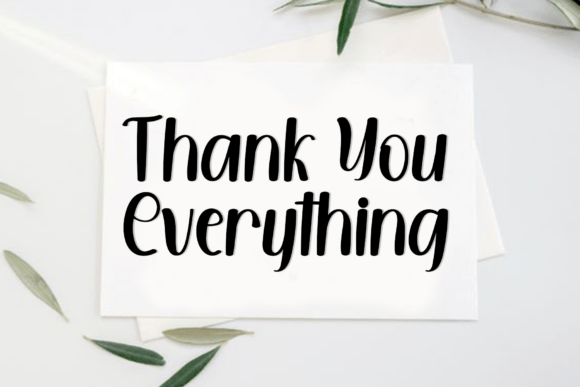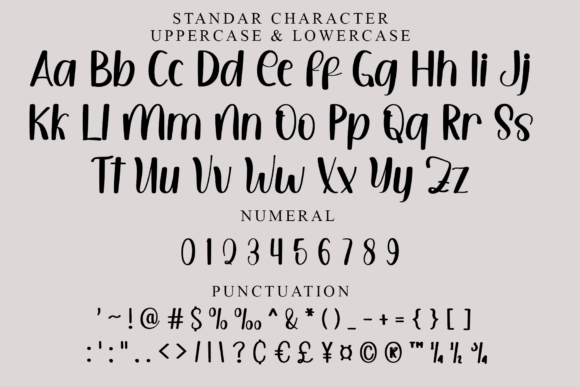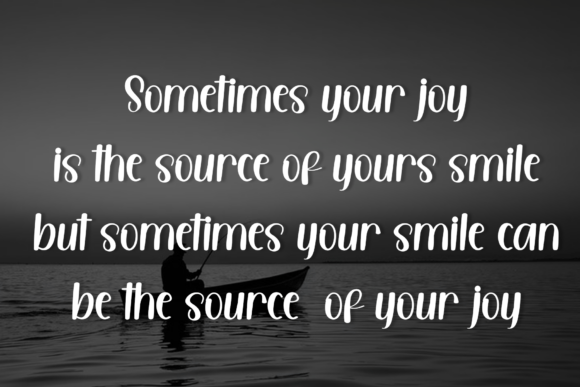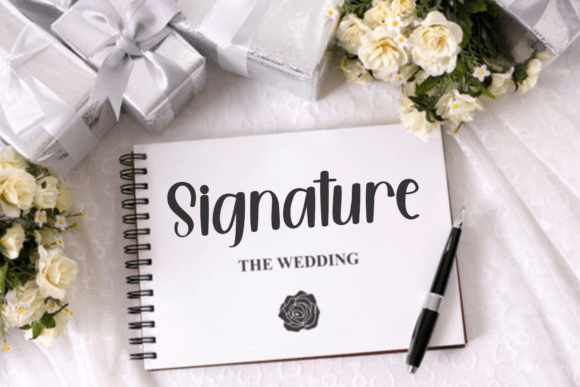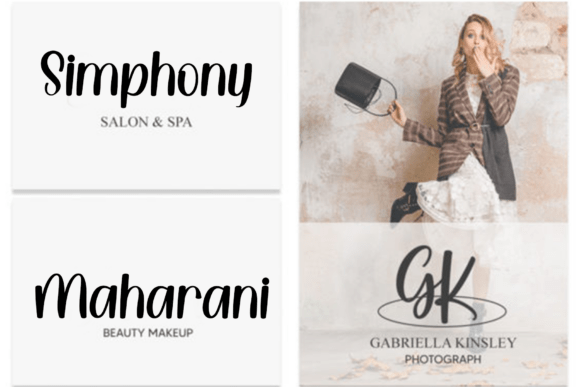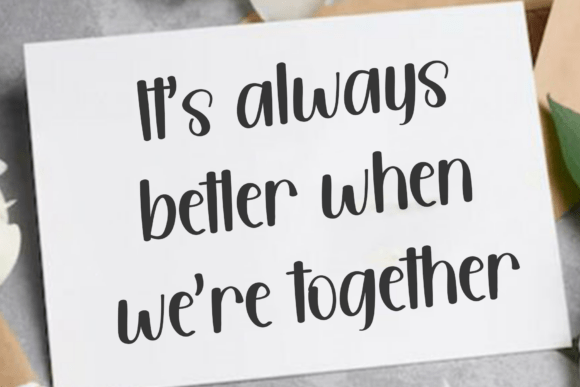
Introduction to Just Smile Font
Just Smile is a festive and merry typeface that captures the spirit of the holiday season.
Key Features of Just Smile Font
Why Choose Just Smile Font?